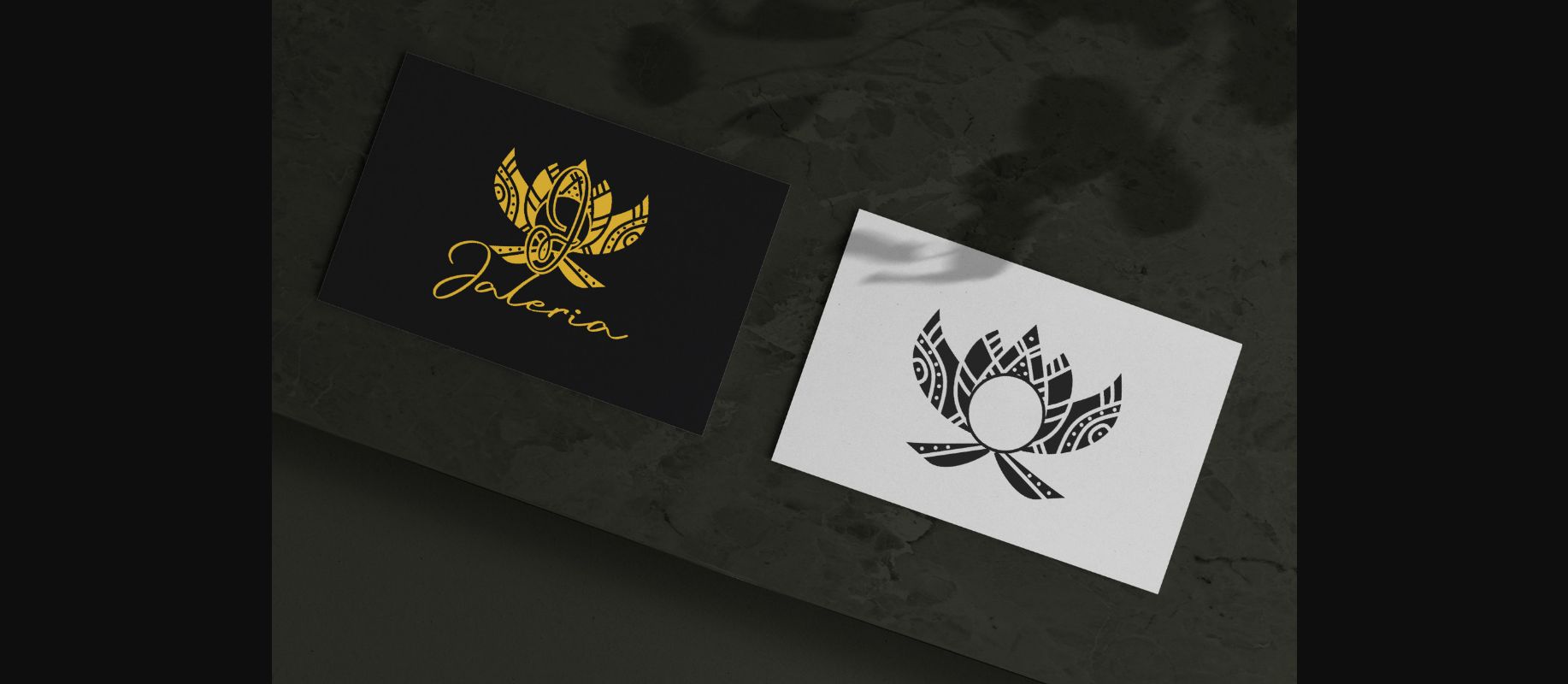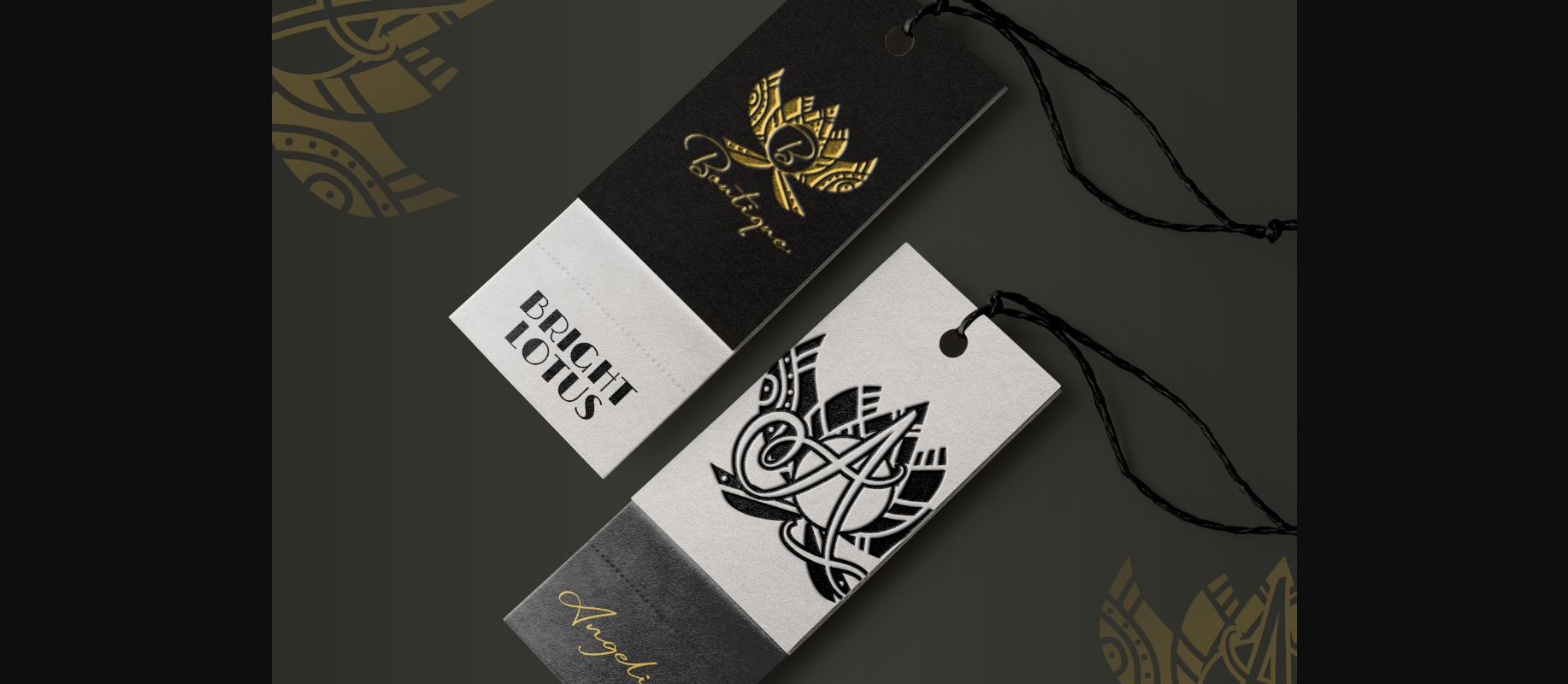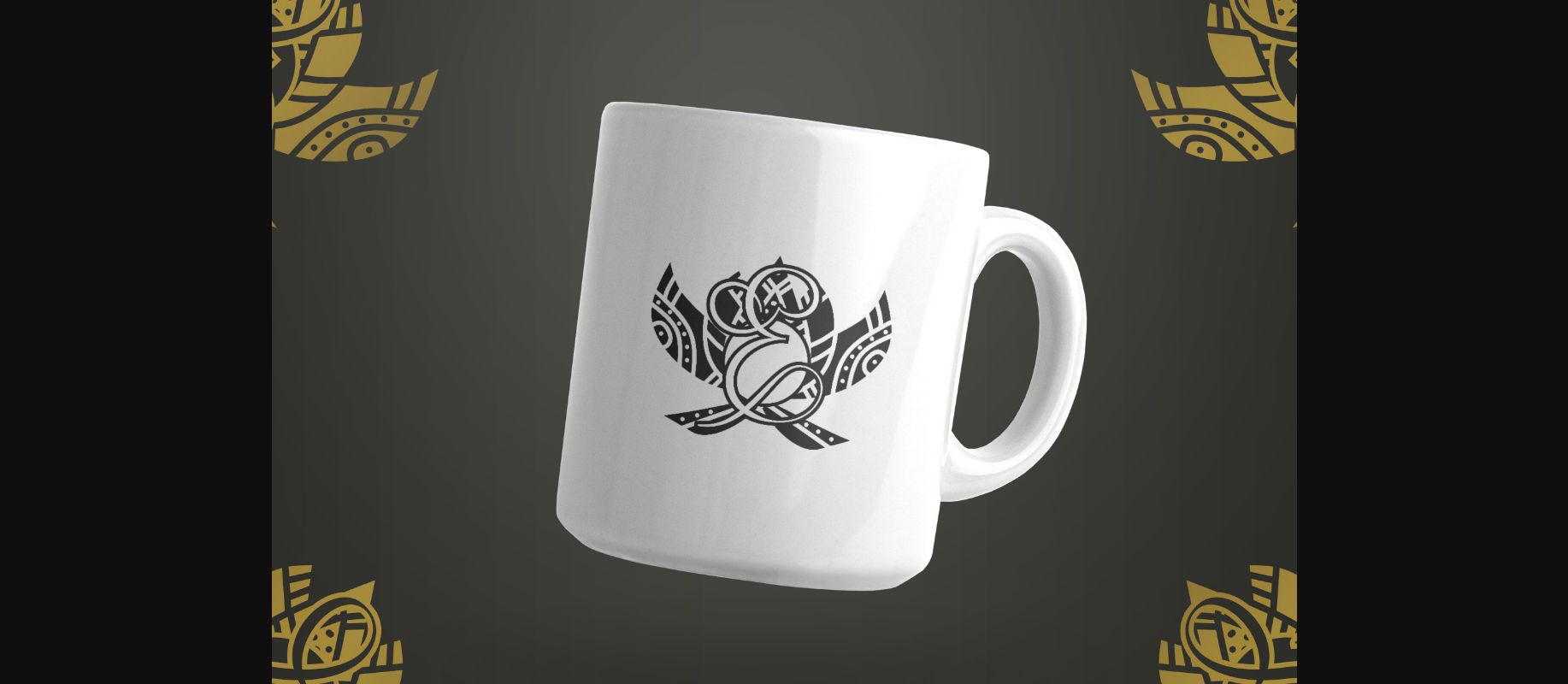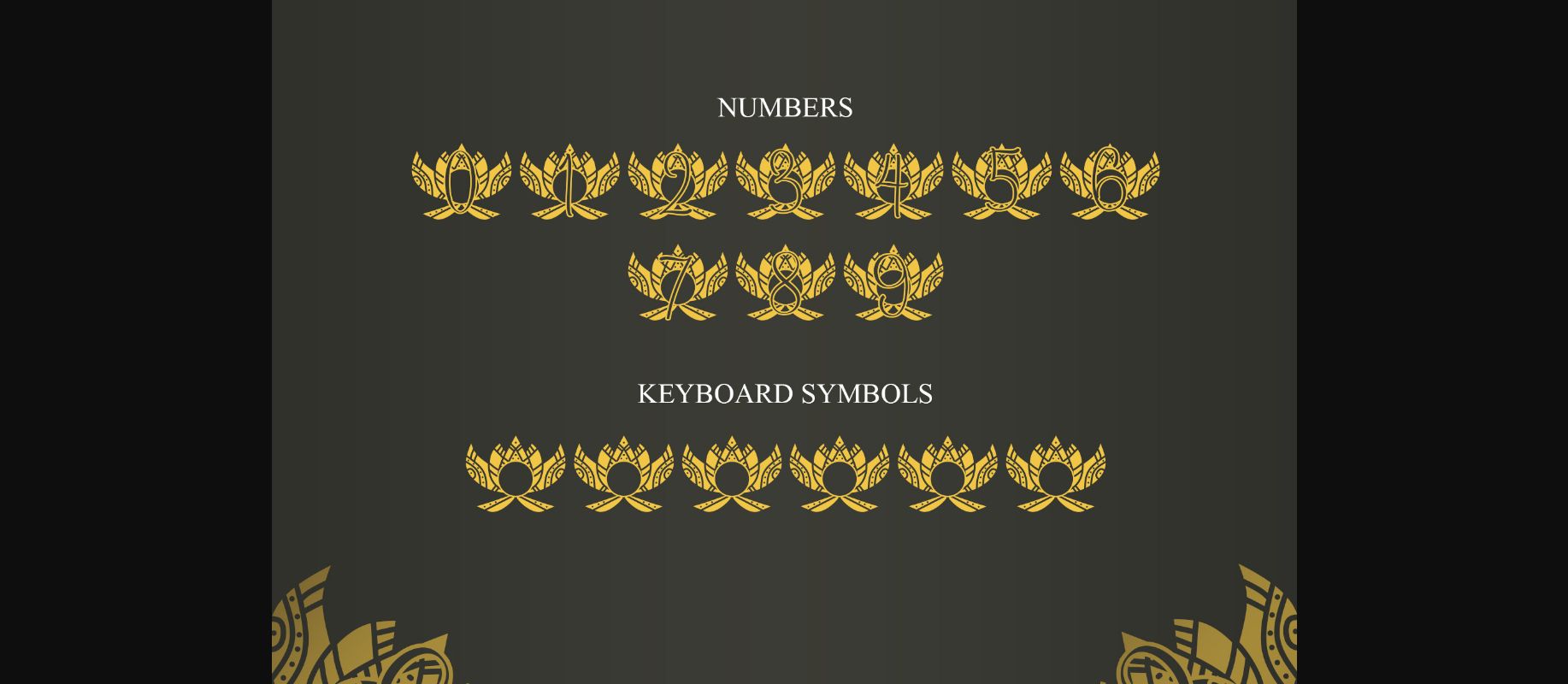
About Bright Lotus Mandala Monogram Font
Bright Lotus Mandala Monogram is an elegant and unique decorative font inspired by the elegance of mandala art. Use it for your craft, logo, or anything in your collection.